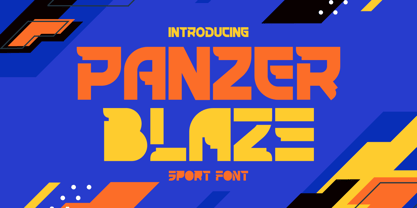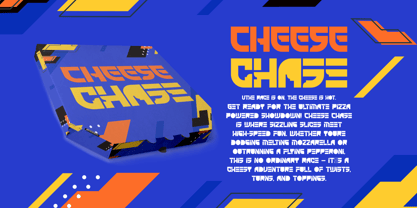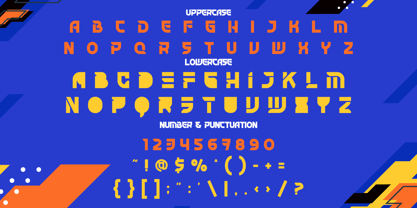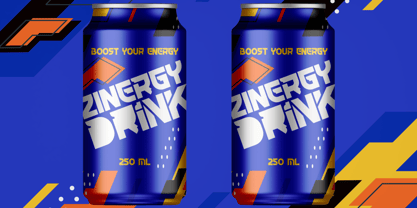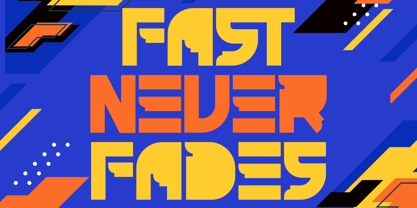
Panzer Blaze
by Shanaf
The Panzer Blaze Font Family was designed by Yesie Erma Yunita and published by Shanaf. Panzer Blaze contains 1 styles. More about this family
Panzer Blaze Sport Font is a high-impact display typeface forged for bold branding and dynamic sports design. With its geometric cuts, chiseled terminals, and electrifying modularity, this font packs pure velocity into every character. The uppercase forms carry a blocky industrial tone, while the lowercase alternates bring visual rhythm with segmented, game-ready aesthetics. Combining sharp angles with stencil-like interruptions, it delivers a masculine, futuristic identity that dominates attention on any medium.
This font was engineered to perform across energetic applications — from esports logos to beverage cans, pizza boxes to race-themed posters. The layered color system and diagonal layout suggestions provide extra motion and versatility. Panzer Blaze is your go-to choice for packaging, film titles, modern stickers, and urban gear branding. Compatible with both retro arcade and fast-forward themes, it empowers brands to move with attitude and style. Whether you're crafting speed-driven visuals or creating hype-driven merch, this font accelerates everything it touches.
Designers: Yesie Erma Yunita
Foundry: Shanaf
Panzer Blaze